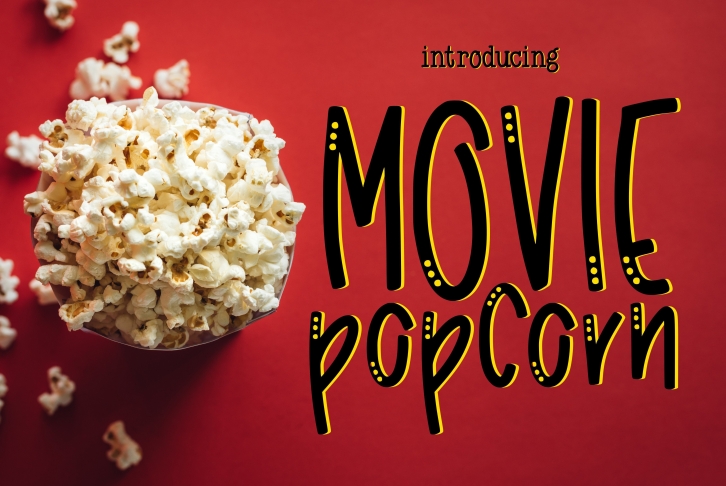
Looking to add some fun and excitement to your next project? Look no further than the Movie Popcorn font! This unique font features added details to give it a marquee sign look that is sure to impress. Whether you’re creating a movie poster, flyer, or website, the movie popcorn font is perfect for adding some personality. So don’t settle for boring old fonts, spice up your next project with the movie popcorn font!